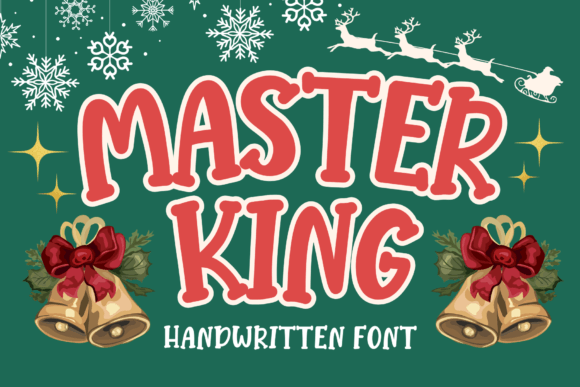
Introducing the captivating and versatile Master King Font! Crafted by the talented Brown Cupple Fonts, this script font is the ultimate choice for those seeking a fun and authentic style. With its playful essence, Master King Font is the perfect companion for all your creative endeavors.
Let your imagination run wild as you explore the endless possibilities that this font offers. Whether you're working on a blog post, designing a logo, creating a brand identity, or crafting eye-catching advertisements, Master King Font will elevate your projects to new heights.
Bring a touch of personality and charm to your invitations, greeting cards, planners, and photo albums. The unique handwritten feel of Master King Font adds a delightful touch to any occasion, making your designs truly memorable.
Dazzle your audience with stunning decorations that stand out from the crowd. From party banners to home decor, this font will transform any ordinary space into a captivating and inviting atmosphere.
But the magic doesn't stop there. Master King Font is your secret weapon for unleashing creativity and inspiring joy. Its authenticity and character will captivate your audience, leaving a lasting impression.
Embrace the power of Master King Font and watch as your designs come to life. Its versatility knows no bounds, allowing you to effortlessly express your creativity across various projects. With its wide range of applications, this font has everything you need to make your visions a reality.
Don't settle for ordinary fonts when you can have the extraordinary. Master King Font is a breath of fresh air in the world of typography, offering a unique and exciting experience for designers and enthusiasts alike.